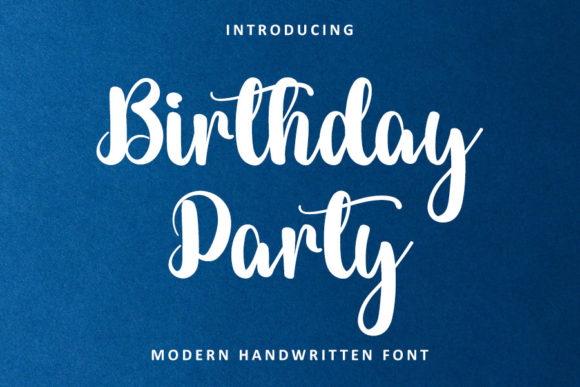
The Birth of a Timeless Font: A Deep Dive into Birthday Party Font
I’ll never forget the moment I stumbled upon the perfect font for a client’s birthday party invitation project. I had been scouring the internet for hours, trying to find a font that captured the essence of celebration and joy. That’s when I discovered the Birthday Party font – a stylish handwritten font that exudes a contemporary atmosphere and impeccable form. In this article, I’ll share my experience with this beautiful font, its features, and how to make the most of it in your design projects.
- ✅ Elegant and modern design that’s perfect for a variety of projects, from party invitations to branding materials.
- ✅ Well-balanced and varied, making it easy to use in different contexts.
- ✅ Inspired by timeless classic calligraphy, giving it a sophisticated feel.
- ✅ Easy to read and understand, even in smaller sizes.
- ⚠️ Some users may find the font a bit too ornate for very casual or playful projects.
- ⚠️ Limited availability of certain special characters or glyphs.
The Designer Inspiration Behind Birthday Party Font
The story behind Birthday Party font begins with a designer who wanted to create a font that captured the essence of celebration and joy. Inspired by timeless classic calligraphy, they carefully crafted a font that balances elegance and modernity. The result is a beautiful, stylish handwritten font that’s perfect for a variety of projects.
Q: What type of projects is Birthday Party font best suited for?
A: Birthday Party font is versatile and can be used for a variety of projects, including party invitations, branding materials, and creative designs.